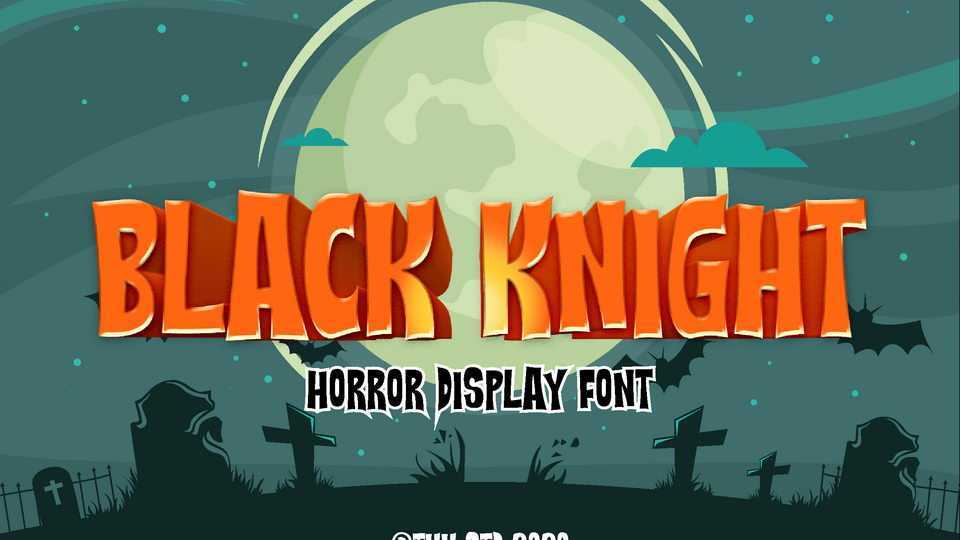
Download Black Knight font, a bold and scary display typeface that suit perfectly for mystery and horror games, poster, movie title, fast food menu, magazine, youtube covers and thumbnails, social media page covers and so on…